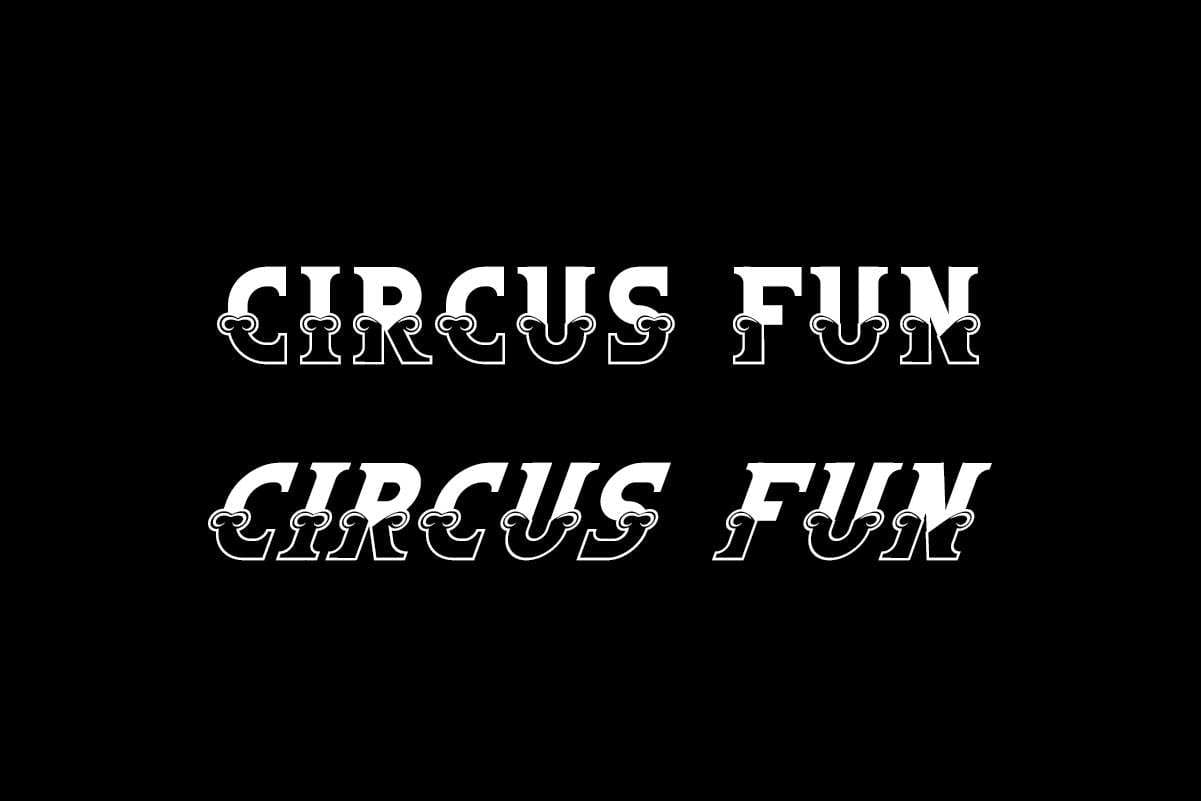
Circus Fun Display Font
Circus Fun Font is a display decorative font family, inspired from circus show in festival. The font exclusively designed by Rais Project. It will be great for Games, Movie, Music, events, Food branding, Kids related product etc
Circus Fun Font is a decorative font Display family, inspired from circus show in festival. You can see the demo font below. You can also input any word you want so you can see what it will look like :
Circus Fun Font handcrafted with two different styles: Regular and Italic. The font will suitable for any your special projects including : brands, promotion, events, games, advertising, magazine, signage, invitation, stationery, social media posts, label, or and any projects that need unique style. The industries for this font is Festival, Comic, Events, Games, Magazine, Music, Movies, etc. On the package You will get: